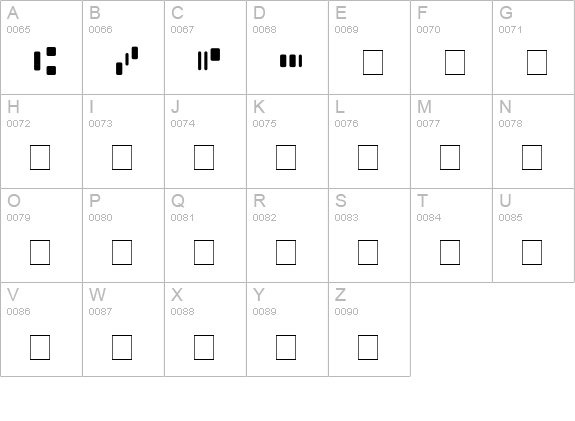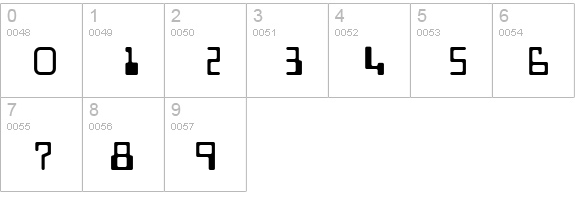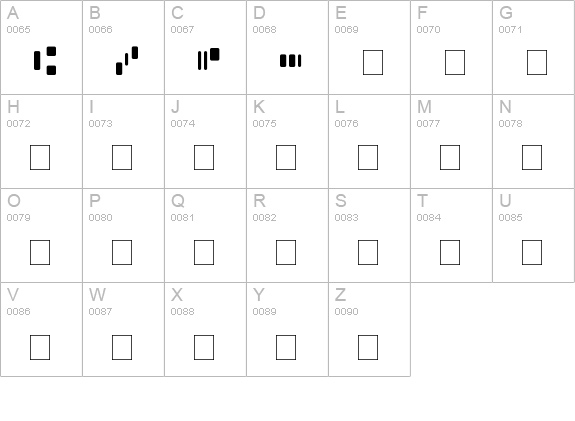
MICR SSi font is a modern and versatile typeface designed specifically for use in financial and banking documents. With its clean and legible appearance, this font is ideal for printing account numbers, check information, and other important financial data. The MICR SSi font is free to download at FontsMarket.com, making it easily accessible for anyone looking to enhance their financial documents with a professional touch. Whether you are a small business owner, a financial institution, or simply someone who values precision and clarity in their documents, the MICR SSi font is a valuable tool that will help you achieve a polished and professional look. Download this font today and see how it can improve the readability and overall appearance of your financial materials.